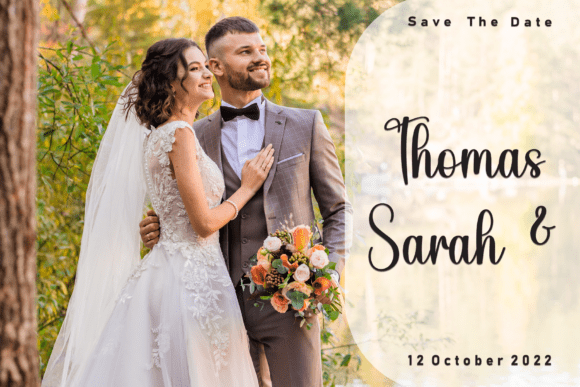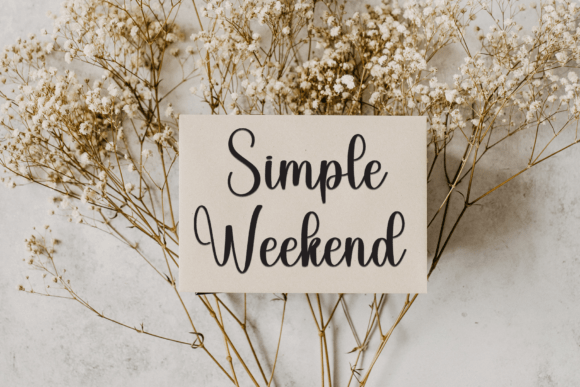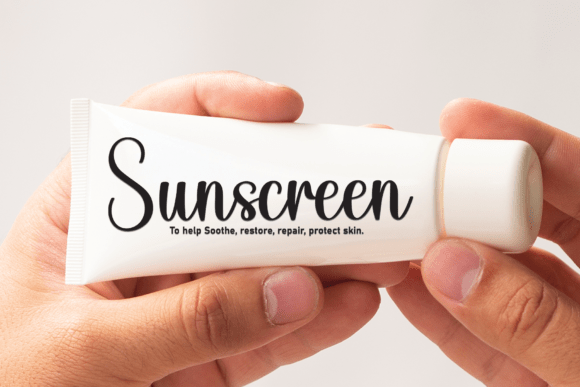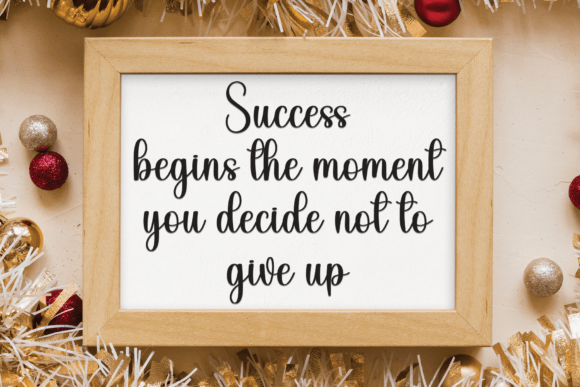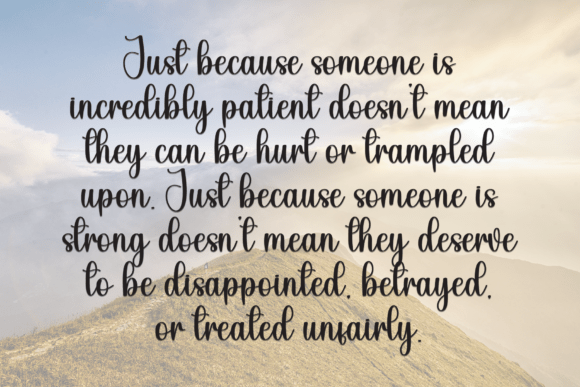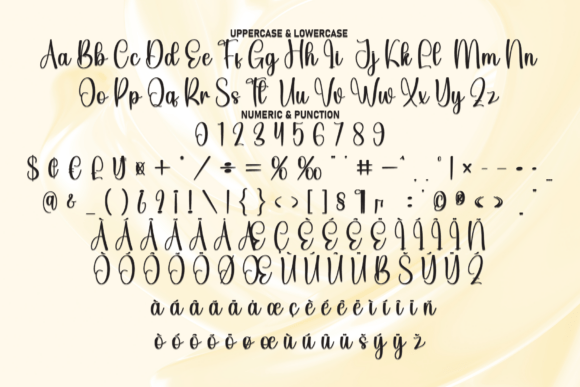
The Enchanting World of Buttermilk Font
Have you ever been in the middle of a design project, pouring your heart and soul into it, only to hit a creative roadblock? I recall a particularly frustrating moment when I was working on a wedding invitation design. My client wanted a font that was elegant, yet playful; sophisticated, yet whimsical. I scoured the internet, tried countless fonts, but nothing seemed quite right. That was until I stumbled upon the captivating charm of Buttermilk Font. ✨
A Designer’s Delight: Buttermilk Font Review
Buttermilk Font is a painstakingly created display font that radiates a captivatingly charming character. It’s perfect for infusing your designs with a magical touch of joy. Here’s what I love about it:
- ✨ Elegant yet playful, making it perfect for wedding invitations, greeting cards, and more
- 💫 Beautifully crafted with intricate details and swashes
- 🎨 Versatile and can be used for a variety of design projects, from digital to print
While Buttermilk Font is a stunning addition to any design, it’s not without its quirks. Here are a few things to keep in mind:
- ⚠️ May not be suitable for body text due to its display font nature
The Story Behind Buttermilk Font
Buttermilk Font was inspired by the charming, rural landscapes of the American South. The font’s creator, a talented type designer, wanted to capture the essence of traditional Southern hospitality and elegance. The result is a font that’s both refined and playful, perfect for designs that require a touch of whimsy and charm.
| What is Buttermilk Font best suited for? | Buttermilk Font is perfect for designs that require a touch of elegance and whimsy, such as wedding invitations, greeting cards, and social media graphics. |